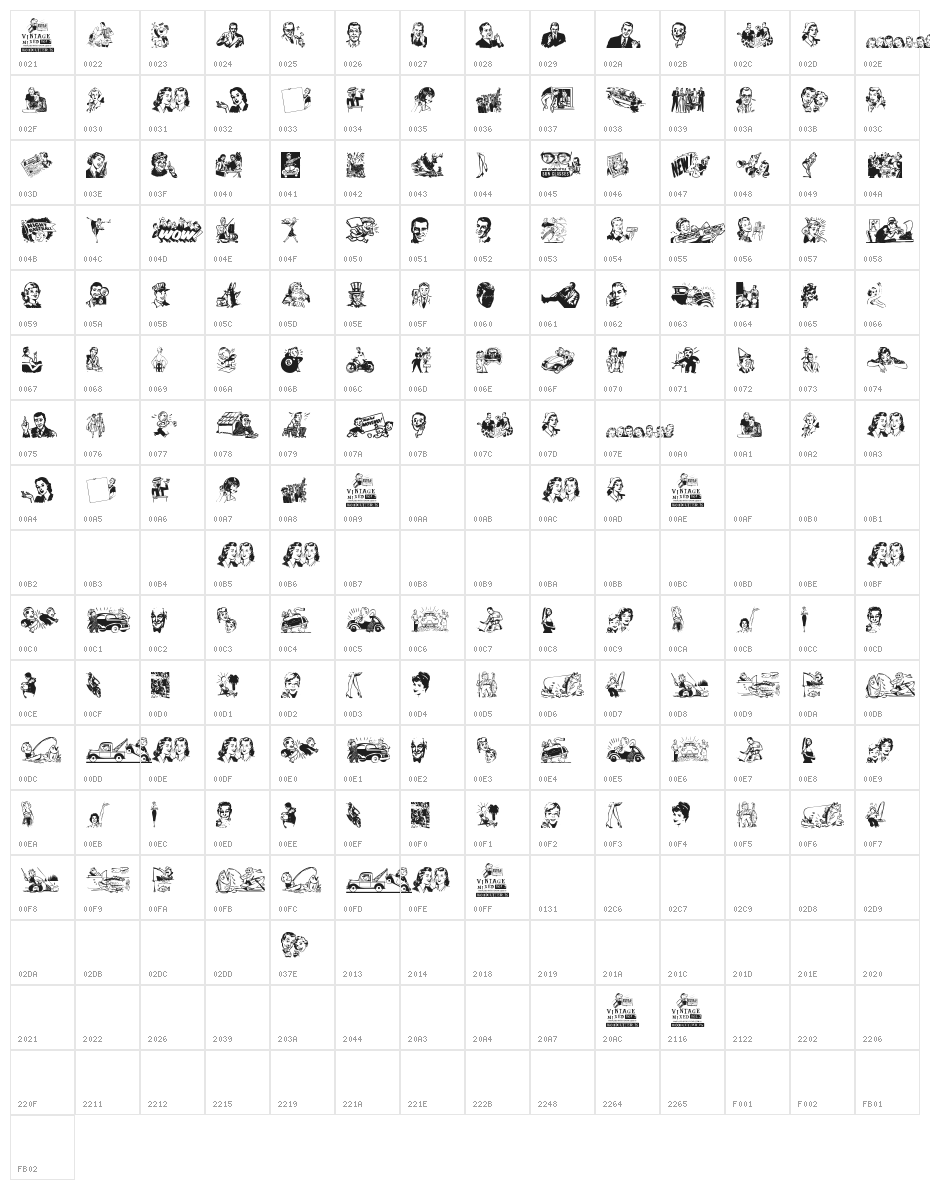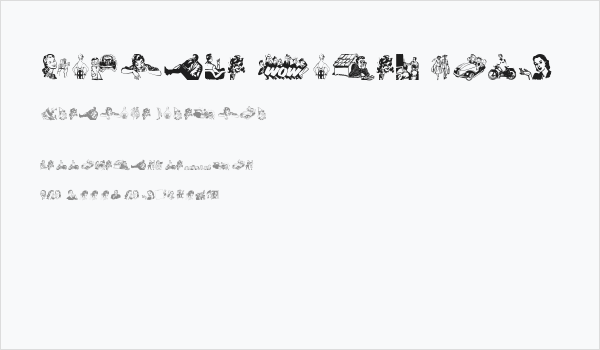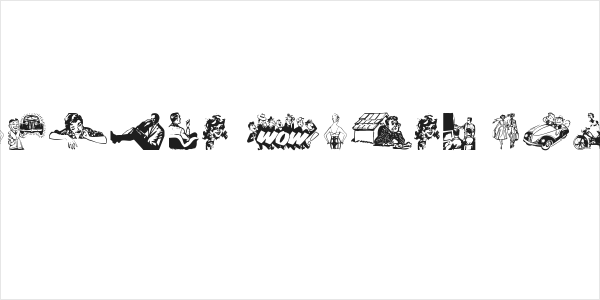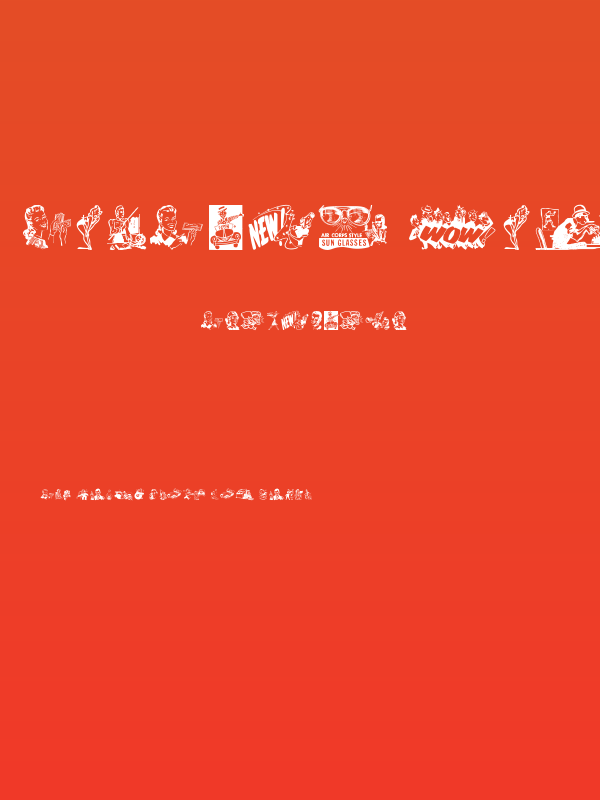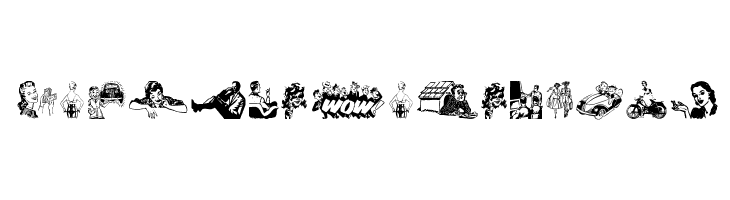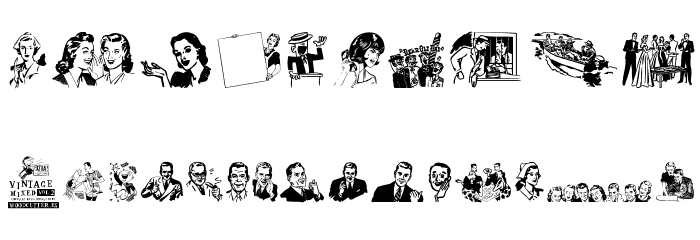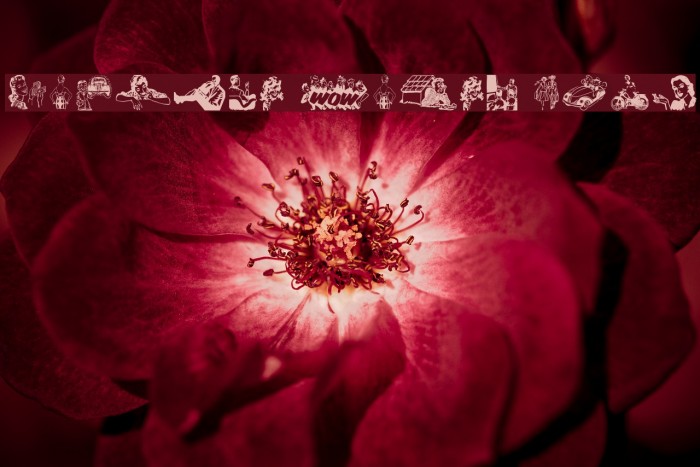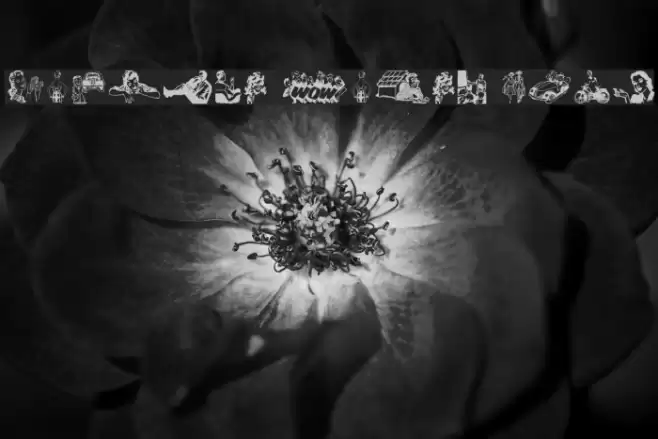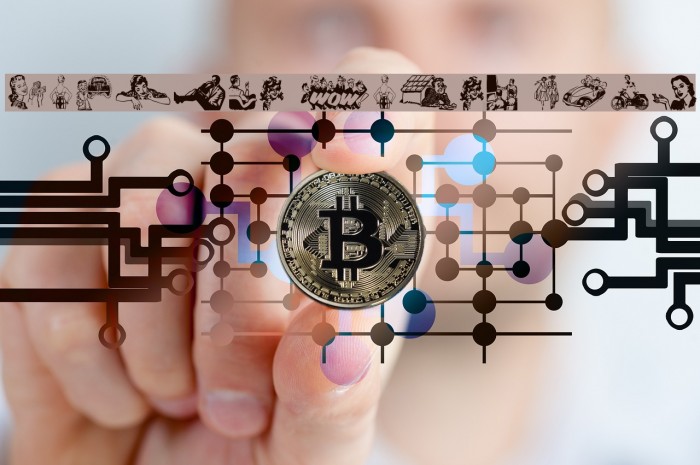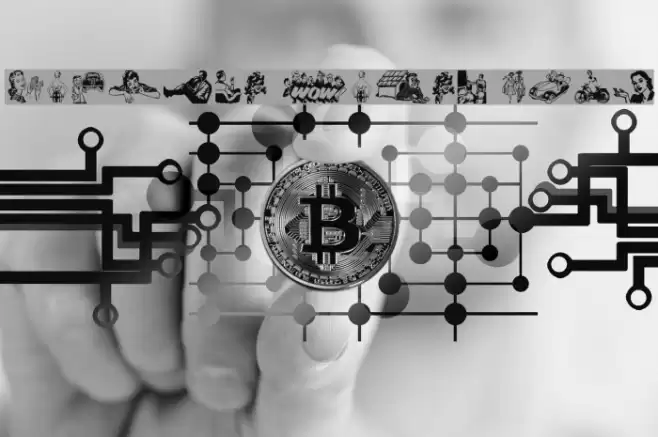
Vintage Mixed vol2 Font
Vintage Mixed vol2 Description
A decorative dingbat set featuring a variety of vintage, mid-century style illustrations, including people, objects, and expressive scenes, rendered in bold black and white line art with a retro comic and advertising flair.
| Overall Style | Vintage, Decorative |
| Use Case | Logos, Posters, Decorative elements |
| Proposed Projects | Retro posters, vintage advertisements, greeting cards, scrapbooking, themed event materials, and playful branding. |